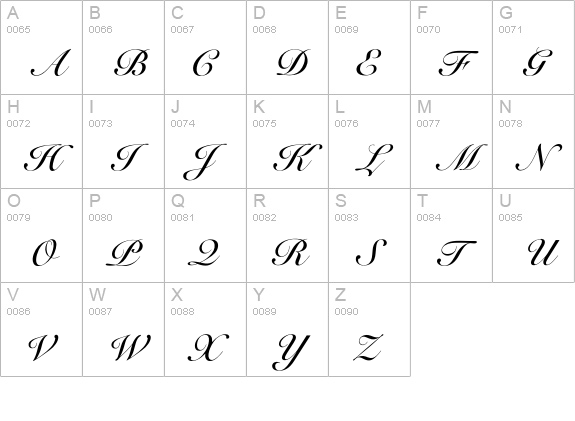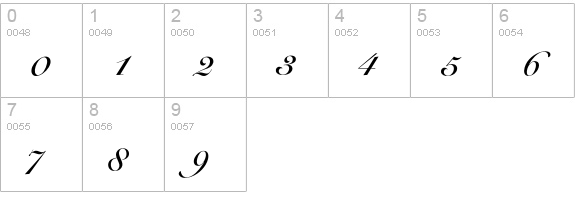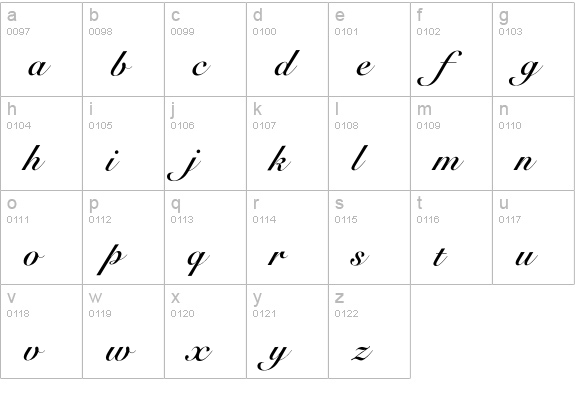
OPTISicilia-Bold Font Details
OPTISicilia-Bold is a strong, high-contrast variant in the OPTISicilia typeface family \xE2\x80\x94 well suited to headlines, attention-grabbing titles, and strong calls-to-action.
OPTISicilia-Bold is a modern and stylish typeface that exudes confidence and sophistication. With its bold and striking letterforms, this font is perfect for creating eye-catching designs that demand attention. The sleek lines and strong curves of OPTISicilia-Bold make it versatile for a wide range of projects, from branding to editorial design. What's even better is that OPTISicilia-Bold is available for free download at FontsMarket.com. This means you can easily access this premium font without breaking the bank. Elevate your designs with the bold and impactful presence of OPTISicilia-Bold today.